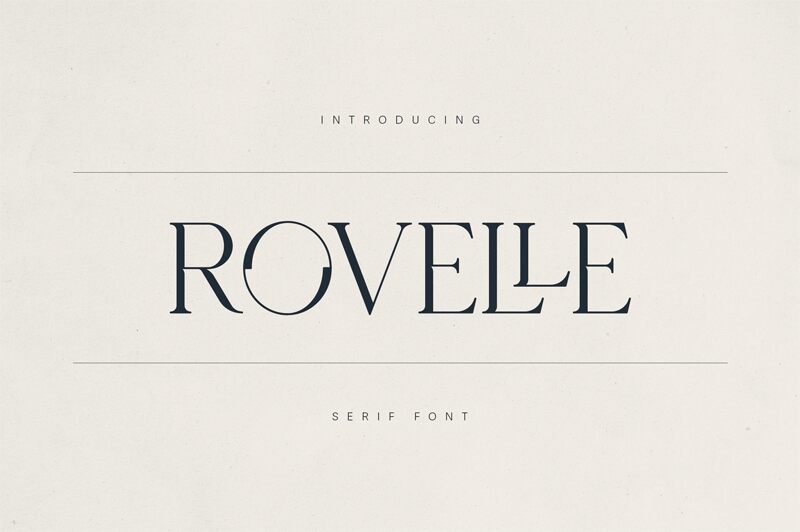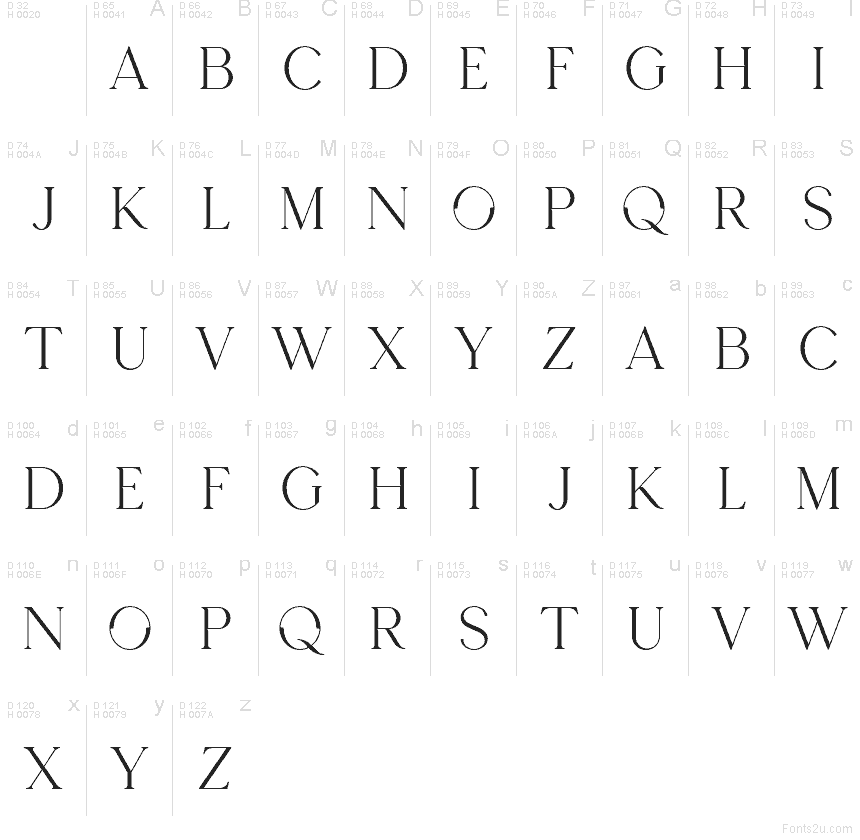
Rovelle Demo Regular
Rovelle font by VPcreativeshop is a free serif typeface that turns every word into a piece of fine jewelry. Ultra-slim curves slice into bold vertical strokes, creating airy gaps that feel sharp, polished, and a little bit daring. Its tall proportions and crisp, hairline details give titles a runway-like presence, while still feeling refined enough for luxury branding.
Using Rovelle, headlines and logos instantly take on a couture sensibility that suits fashion labels, beauty packaging, magazine covers, posters, invitations, and high-end social graphics. This free font shines when set large with generous letterspacing; pair it with a clean geometric sans for body copy to keep layouts fresh and modern.